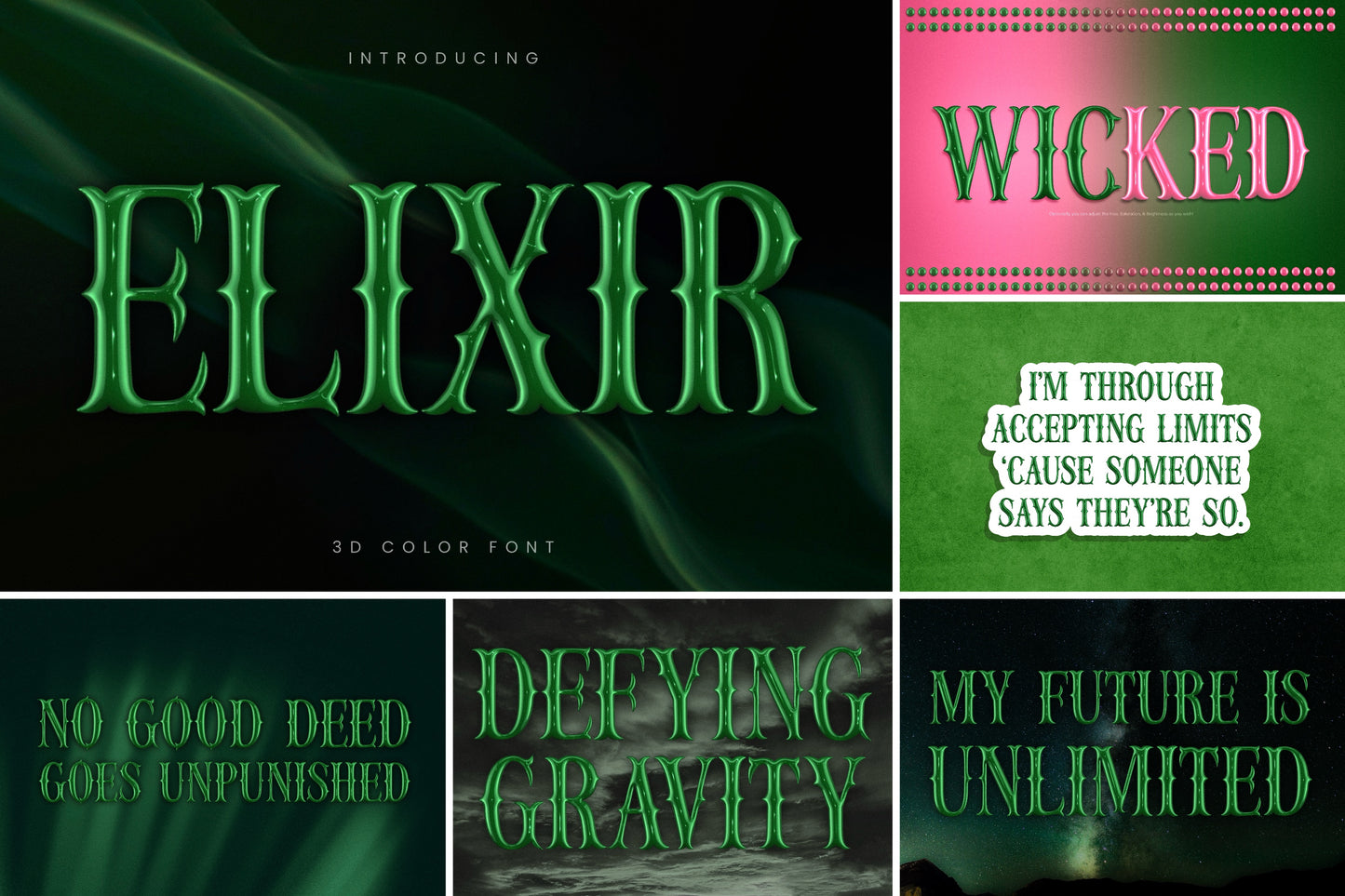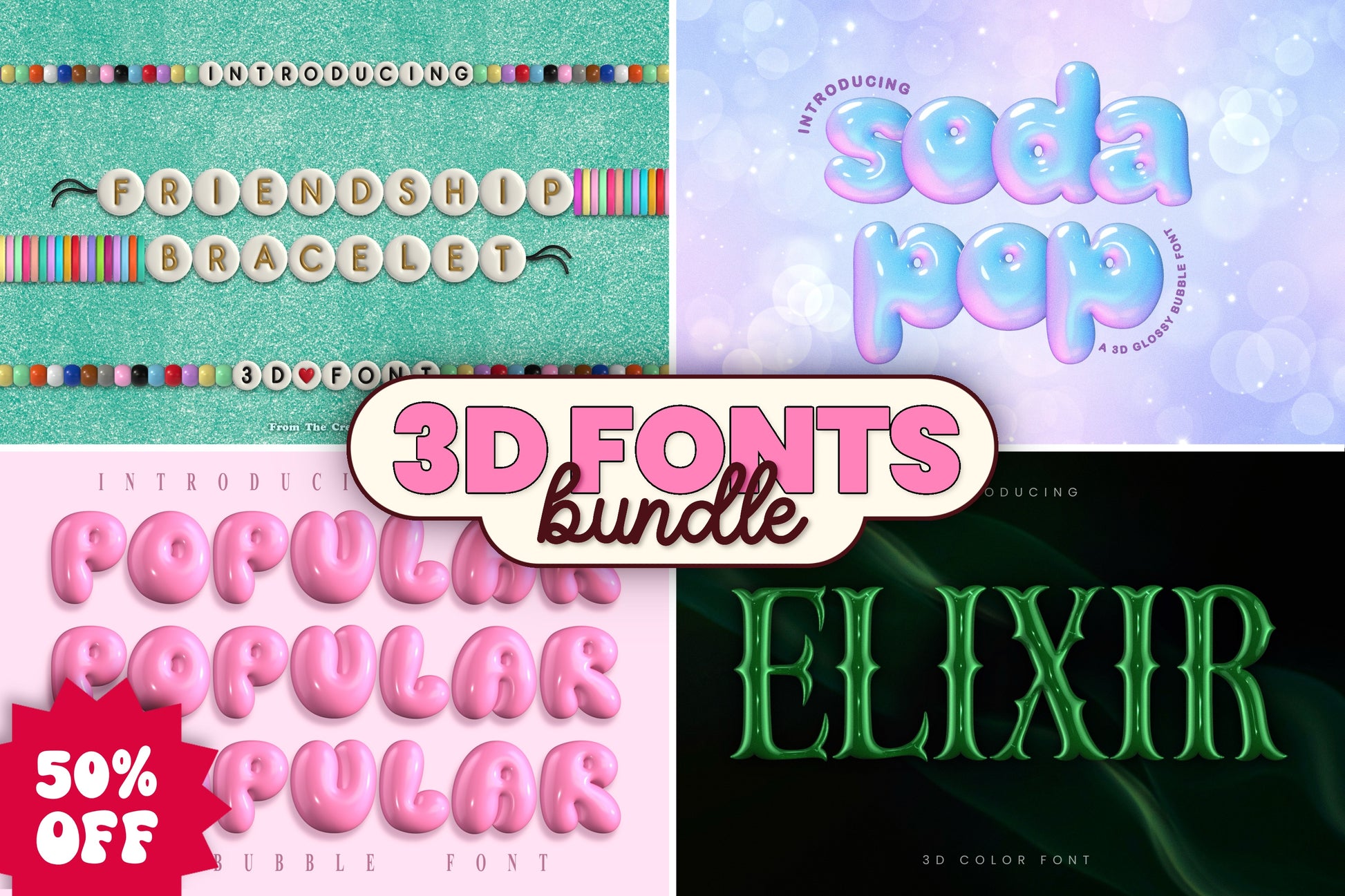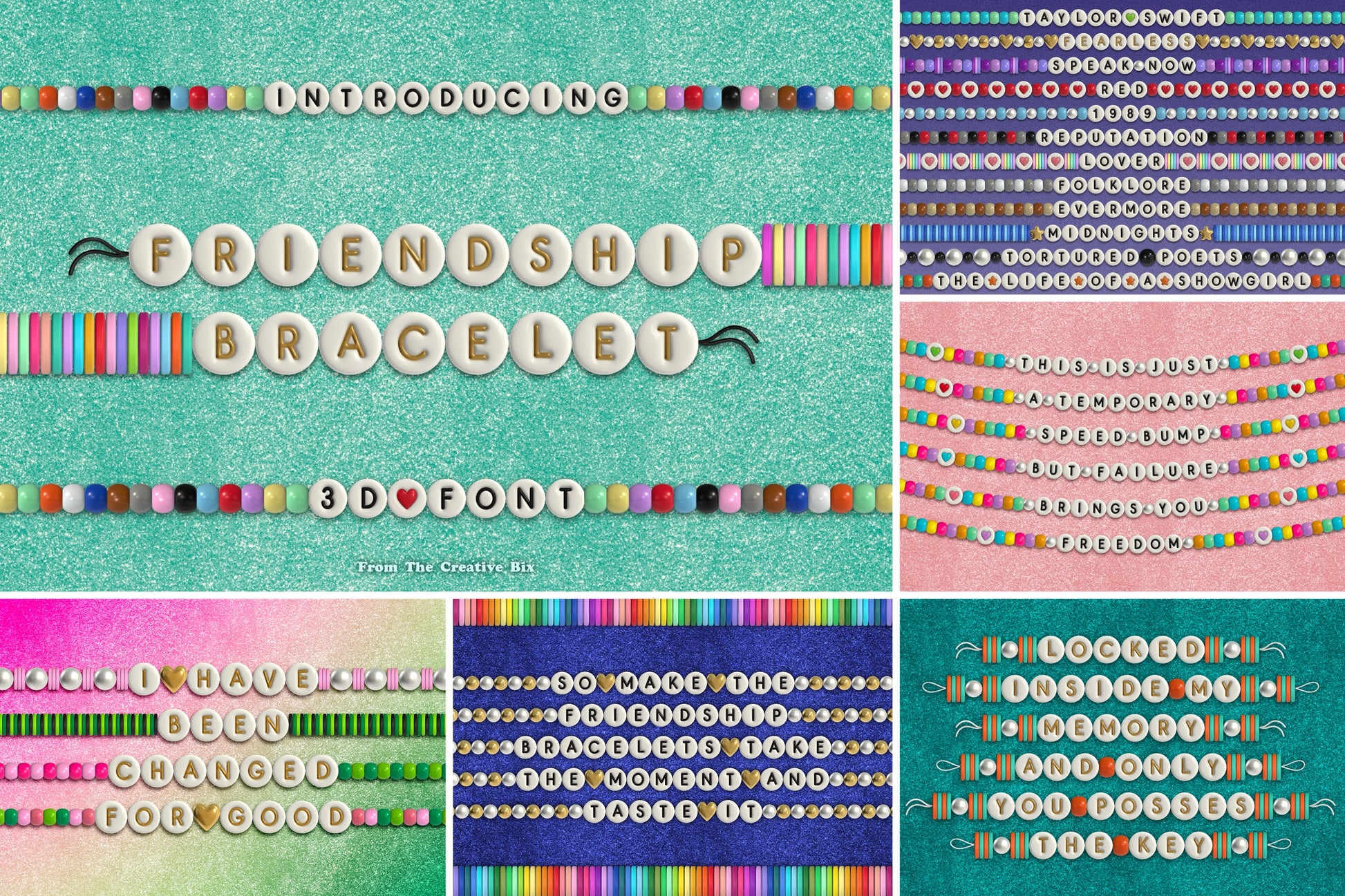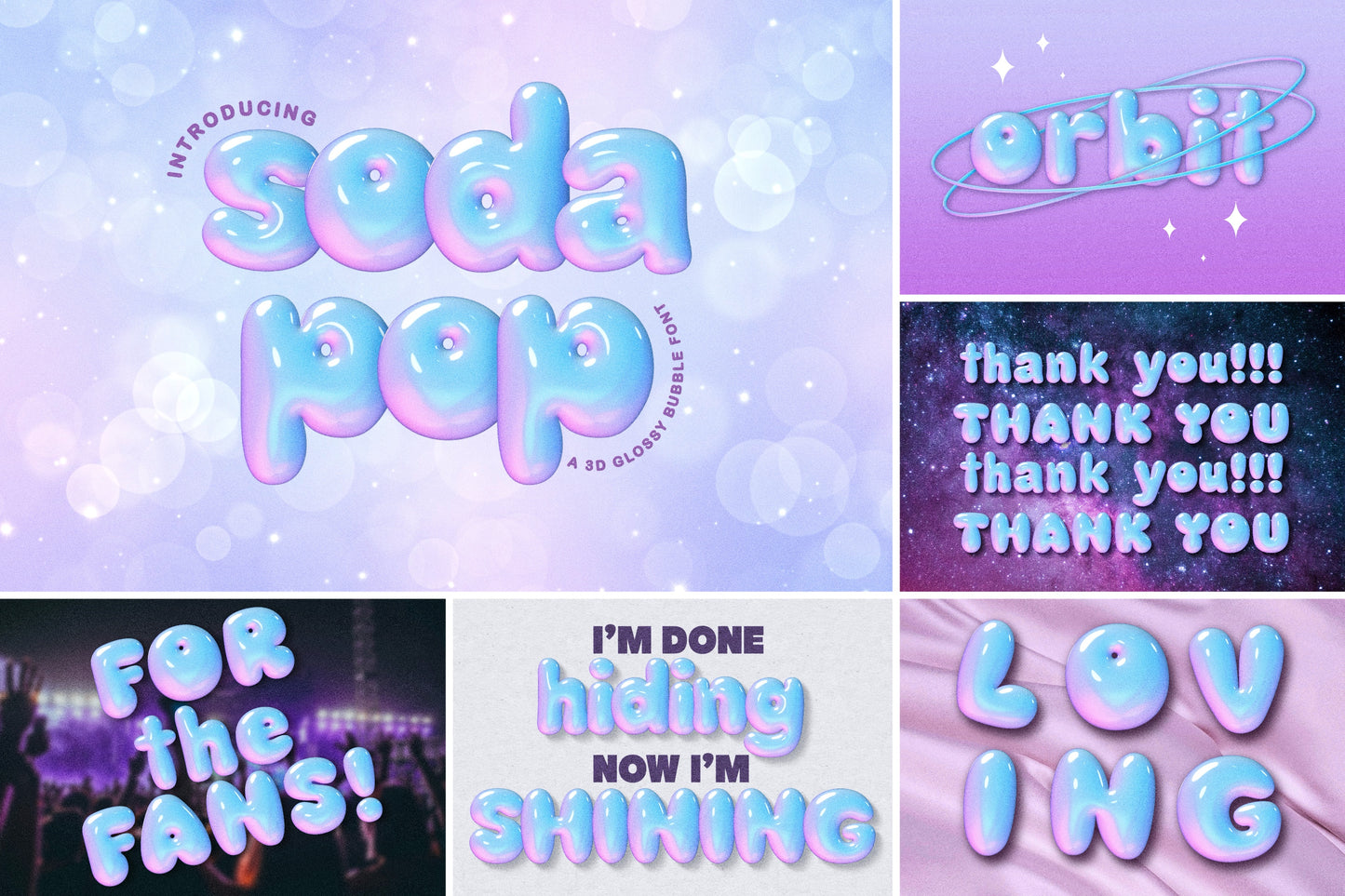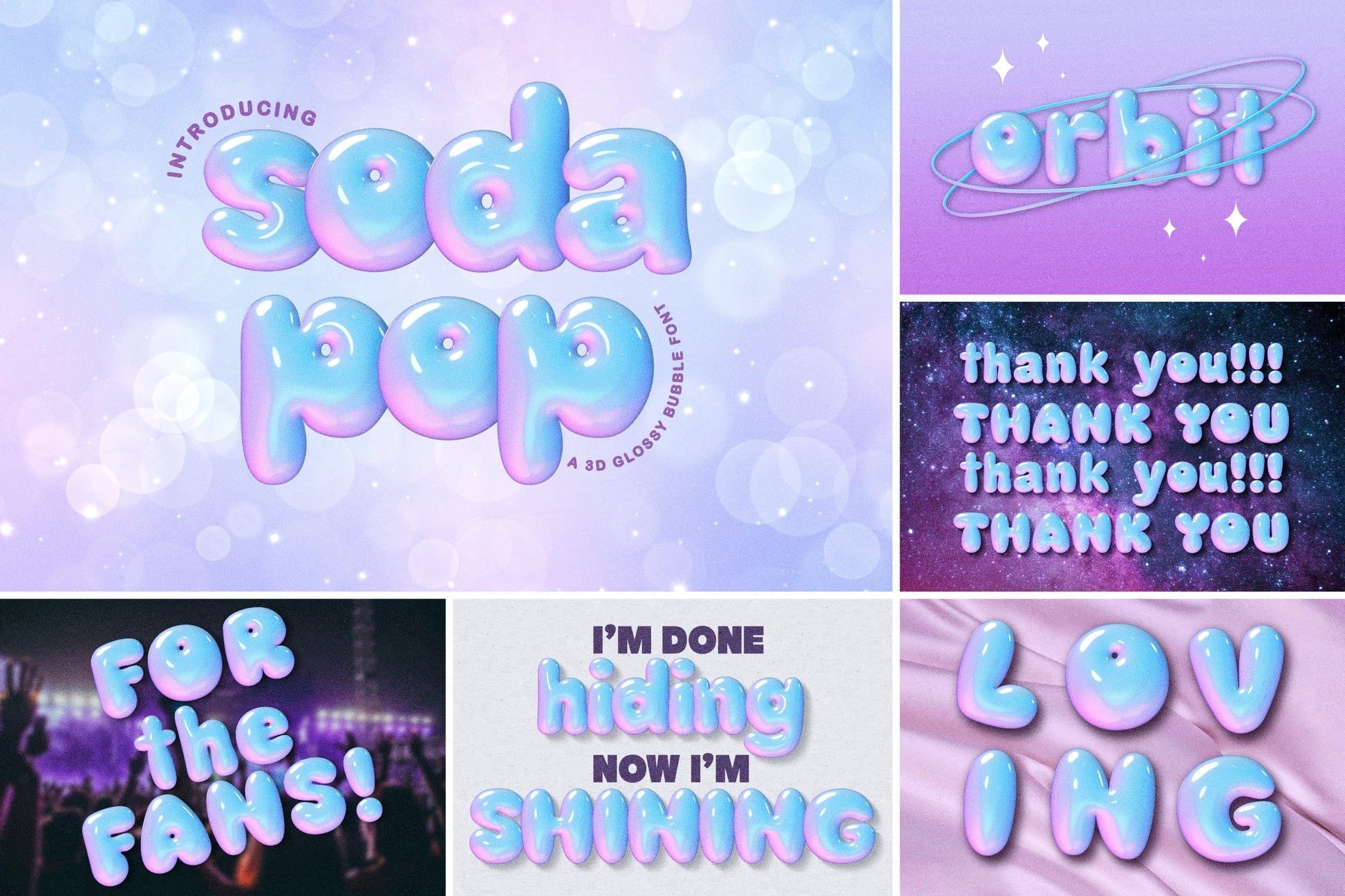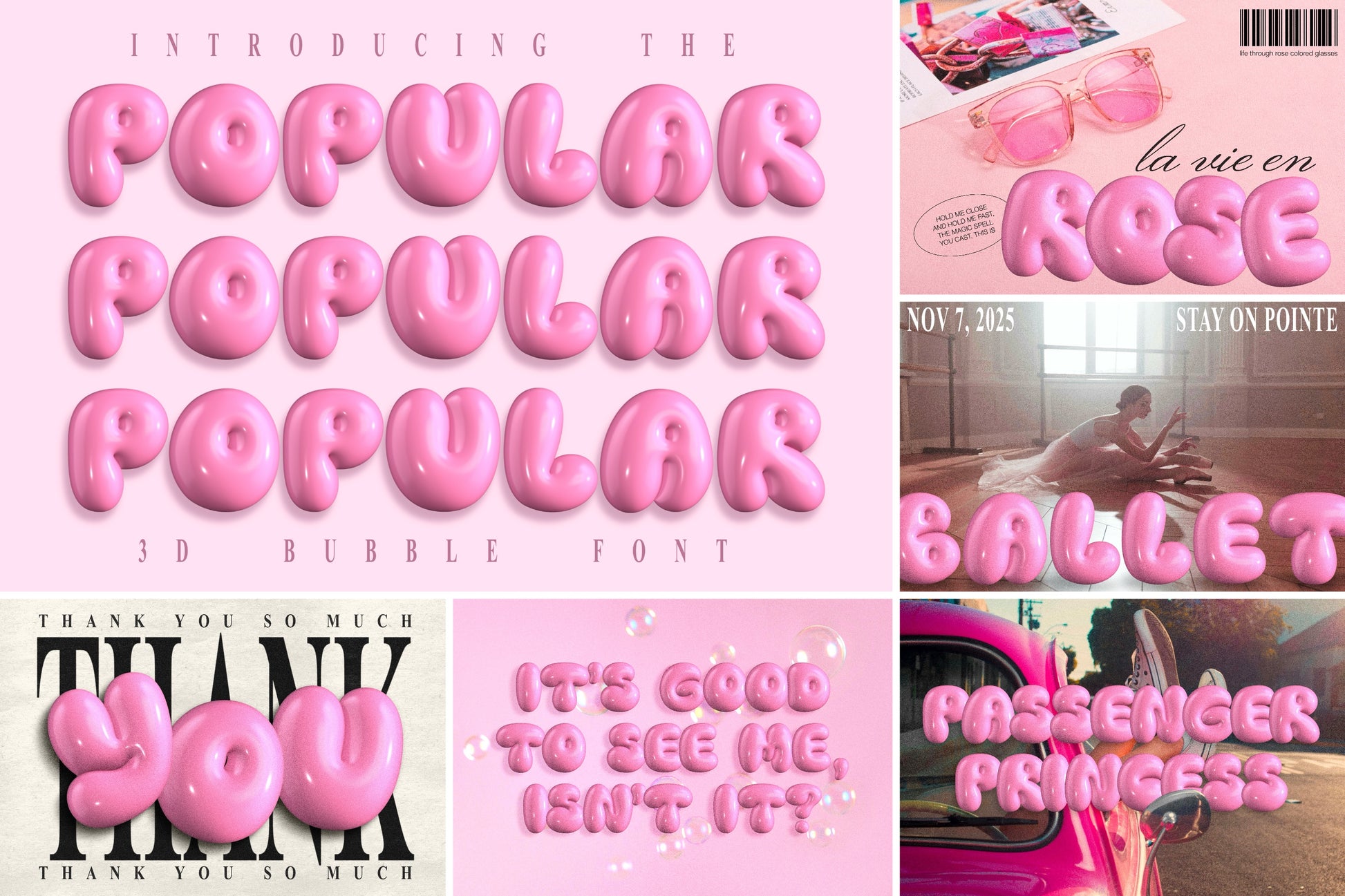
Now you can get these 4 amazing & unique 3D color fonts in one bundle! This fun bundle includes the following fonts:
- Friendship Bracelet
- Soda Pop
- Popular
- Elixir
These hand crafted 3D typefaces anre absolutely perfect for casual, playful designs on stickers, invitations, flyers, t-shirts, posters, children’s branding, magazines, and much more!